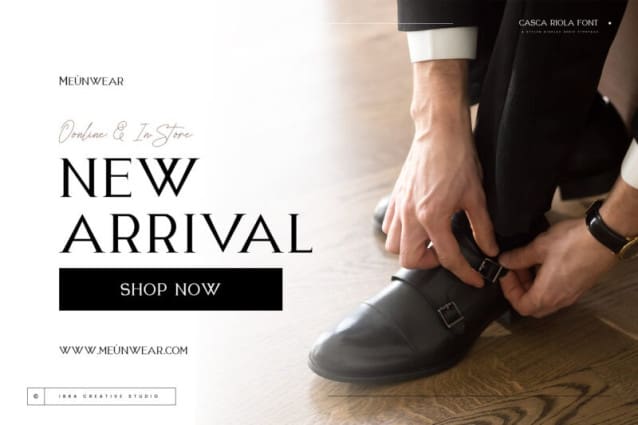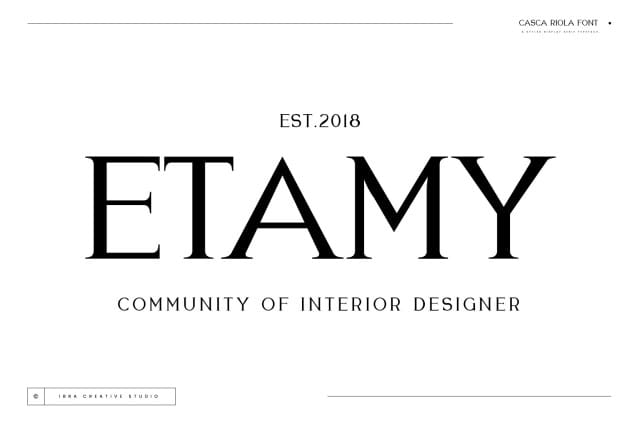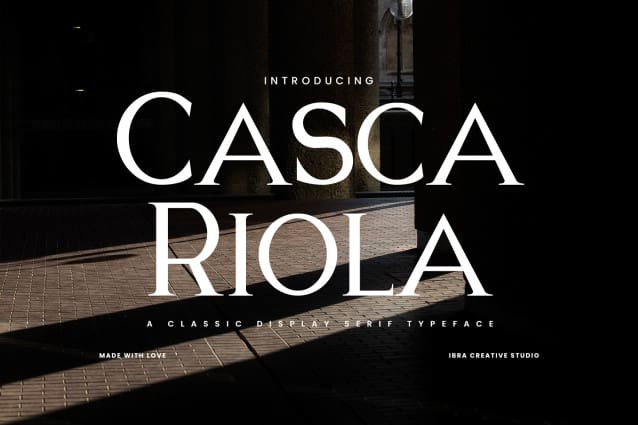
Casca Riola Font
Casca Riola Font is a timeless Classic Display Serif typeface that effortlessly combines elegance with readability. Its refined letterforms showcase a harmonious balance between traditional and contemporary design elements, making it suitable for a wide range of applications. The sturdy serifs and well-defined strokes lend a sense of authority and sophistication, while subtle details in the letter shapes add a touch of modernity. Casca Riola excels in conveying a sense of professionalism and grace, making it an ideal choice for editorial design, luxury branding, and any project that demands a touch of enduring style. Whether used for headlines, titles, or body text, Casca Riola captivates with its timeless aesthetic, making it a versatile and enduring addition to the typographic landscape.
Casca Riola is perfect for branding projects, logo, wedding designs, social media posts, advertisements, product packaging, product designs, label, photography, watermark, invitation, stationery, game, fashion and any projects.